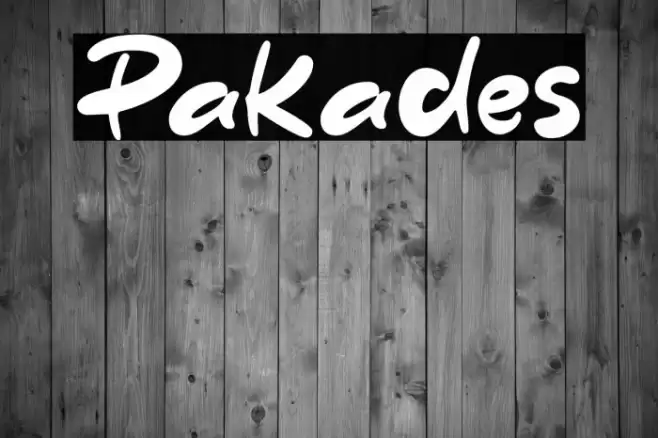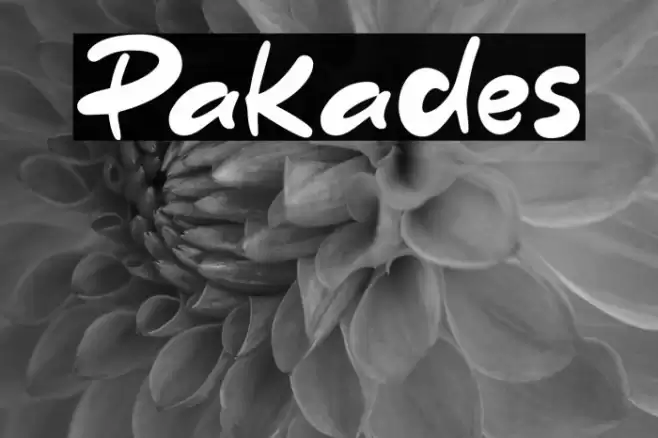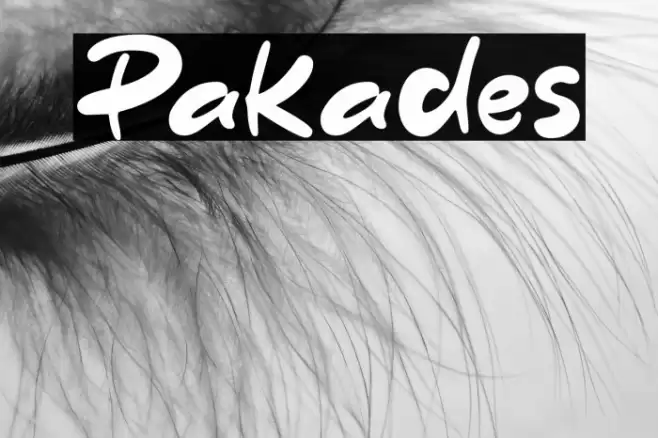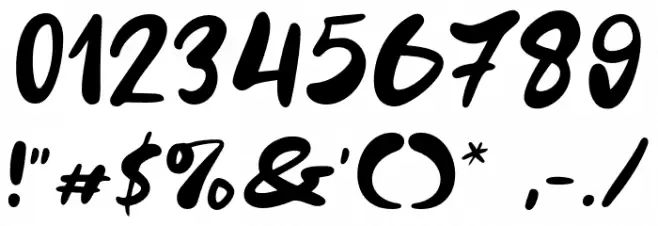
Pakades Font
Pakades Description
This font features a bold and dynamic script style with a handwritten feel. The characters are fluid and connected, giving a sense of motion and personality. The uppercase letters are slightly more formal, while the lowercase letters maintain a casual and approachable look. Numbers and special characters are consistent with the overall style, ensuring versatility across different uses. The strokes are thick, providing a strong presence on the page, and the overall design is modern yet retains a touch of classic script elegance.
A bold, dynamic script font with a handwritten feel from Uncategorized fonts.
- Proposed Projects: Ideal for branding, invitations, greeting cards, and creative projects that require a personal touch.
- Use Case: Logos, Invitations, Creative projects